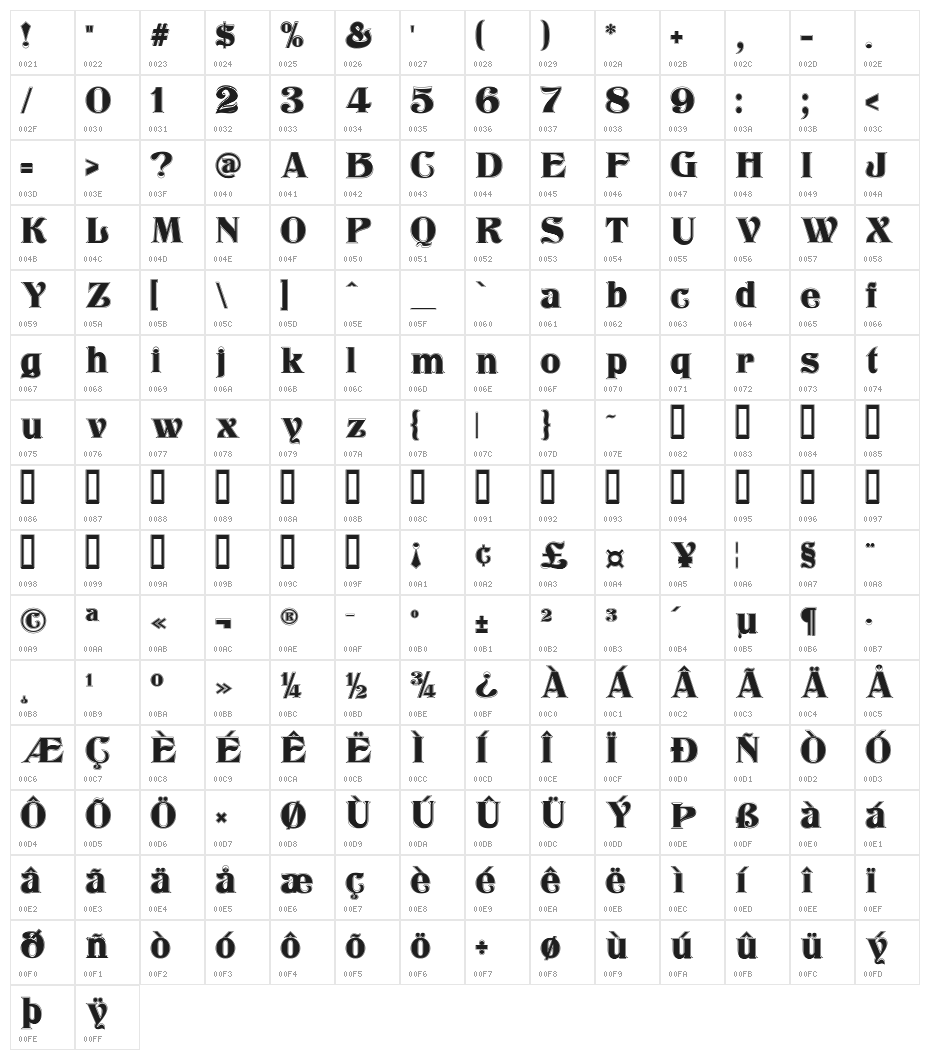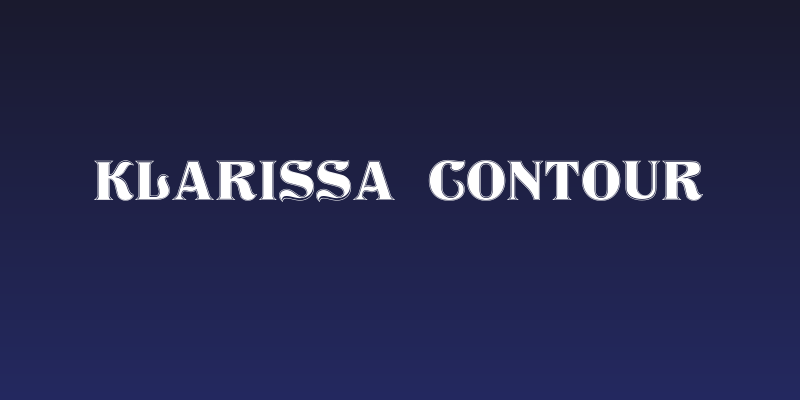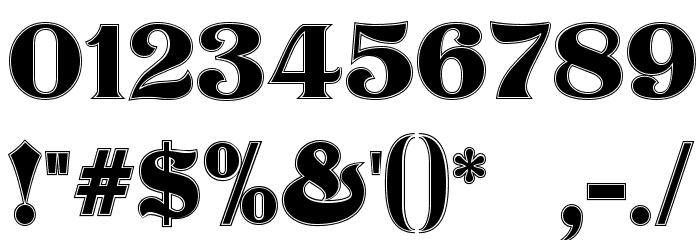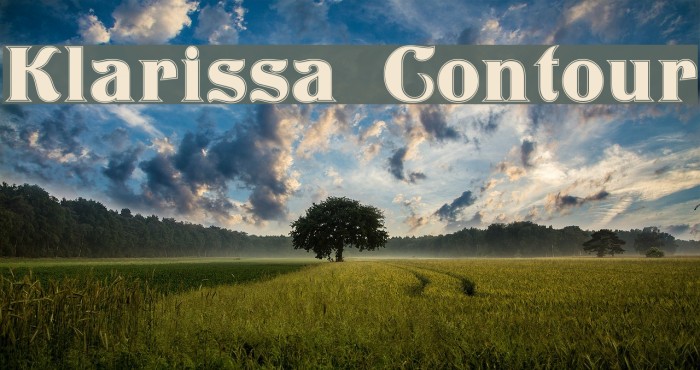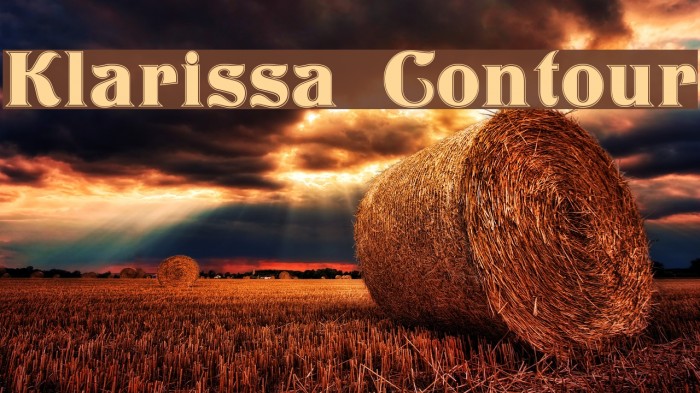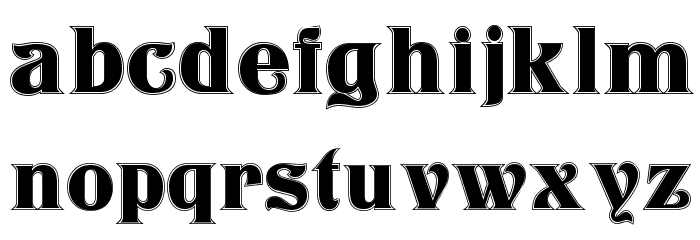
Klarissa Contour Font
Klarissa Contour Description
This font features a bold and striking design with a contour effect that gives each character a three-dimensional appearance. The uppercase letters are particularly prominent, with sharp serifs and a strong presence. The lowercase letters maintain the same boldness, ensuring consistency throughout the typeface. Numbers and special characters are equally robust, making them stand out in any design. The overall style is decorative, with a modern twist that adds a unique flair to any project.
| Proposed Projects | Ideal for headlines, posters, logos, and any design requiring a bold statement. |